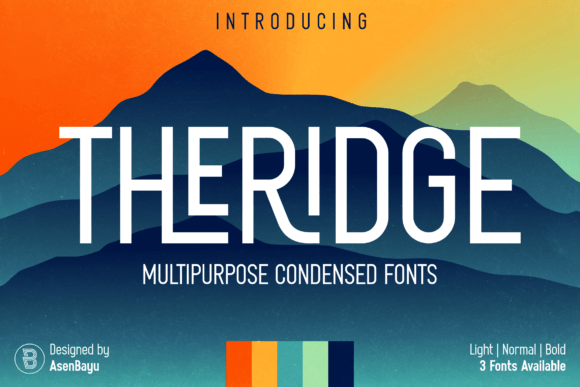
Introducing Theridge Font, the ultimate choice for modern resumes and beyond! Crafted by the talented designer asenbayu, this versatile sans serif font will elevate your projects to new heights.
Theridge Font is more than just a typeface; it's a captivating journey through the picturesque landscapes of hiking trips and forest views. With its clean and neat design, this font effortlessly captures the essence of a clean highland adventure, making it the perfect choice for those seeking a touch of nature in their designs.
With its retro, adventure, urban, hipster, and vintage themes, Theridge Font brings together the best of both worlds - a classic appeal with a modern twist. Whether you're designing logos, posters, headlines, albums, quotes, or apparel, this font will infuse your creations with a distinct personality that stands out from the crowd.
What sets Theridge Font apart is its condensed form, allowing you to make the most of limited space without compromising on style. The compact yet legible letters give your text a sleek and professional look, making it an excellent choice for modern resumes. Impress potential employers with a resume that exudes confidence and sophistication.
But Theridge Font isn't just for job seekers. Its versatility extends to any creative project where a clean and condensed typeface is needed. Whether you're a graphic designer, a content creator, or an aspiring artist, Theridge Font will become your go-to tool for transforming ideas into reality.
Let your imagination run wild as you explore the endless possibilities with Theridge Font. Its captivating charm will breathe life into your designs, captivating your audience and leaving a lasting impression. With its wide range of weights and styles, you have the freedom to experiment and find the perfect fit for your vision.
Embrace the power of Theridge Font and embark on a design journey like no other. Feel the excitement of creating stunning visuals that speak volumes and resonate with your target audience. Let your words and designs come to life with this font that combines elegance, style, and a touch of adventure.